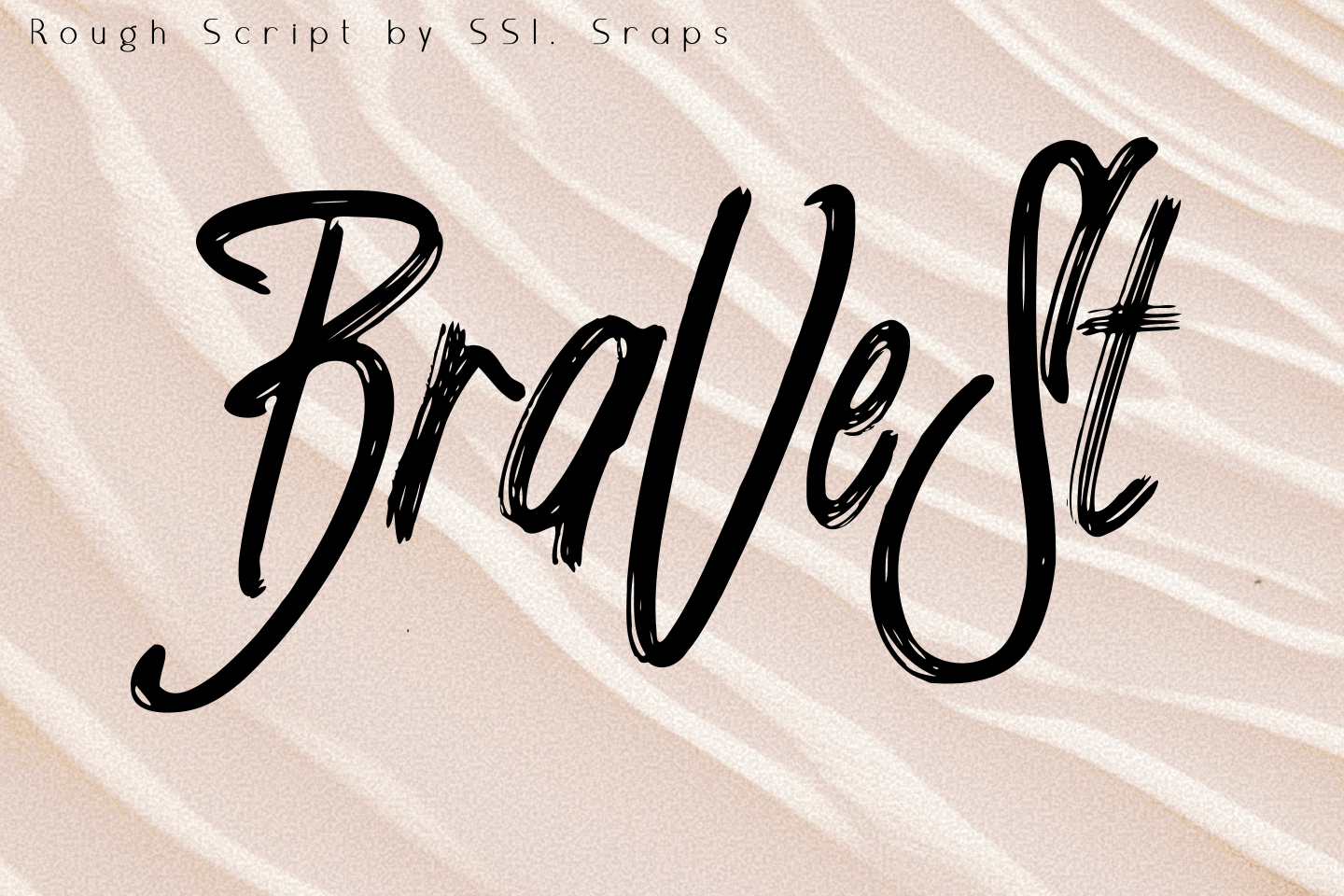
Bravest rough script font
Bravest hand-drawn brush font can be used for various purposes such as headings, logos, invitations, t-shirt designs, greeting cards, posters, labels, book covers, brochures, and much more. It will give your design a fantastic and unique feeling,